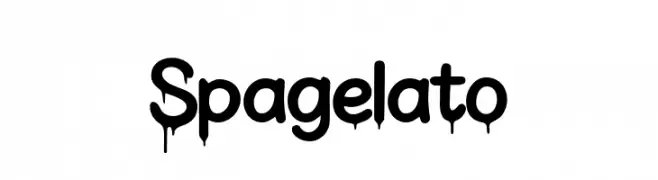
( Fonts by Cat.B )
A bold, dripping font with a playful and eerie style.
( Fonts by Rvandtype )
Decorative font with a dripping effect.
Hand-drawn, graffiti-inspired display font with angular, dripping forms.
( Fonts by Ronny Studio )
A bold, dripping display font ideal for horror or Halloween themes.
( Fonts by Makashi )
Bold, dripping display font with a playful and spooky vibe.
( Fonts by Mr Fisk - Mike Larsson - fontorama.net )
A distressed, melting-style font with jagged outlines and intense visual impact.
A bold, geometric font with a modern, playful, and artistic style.